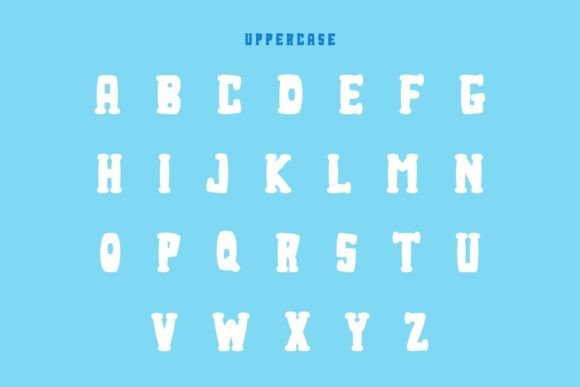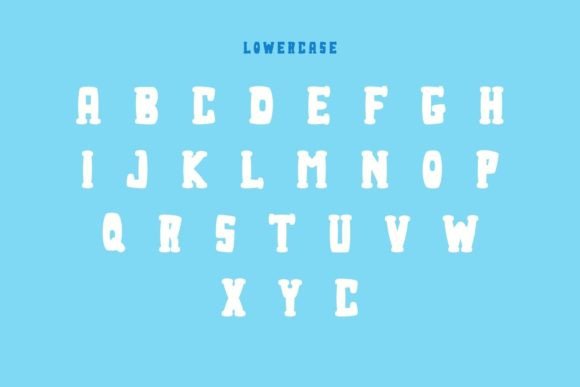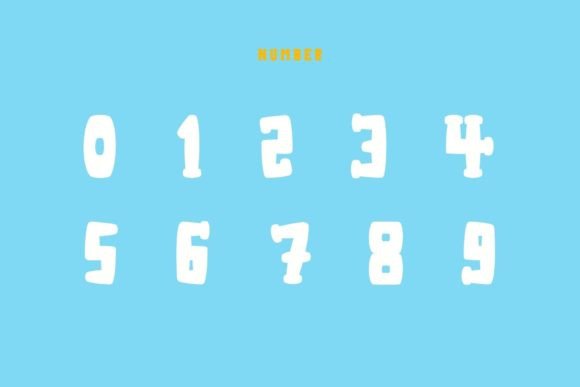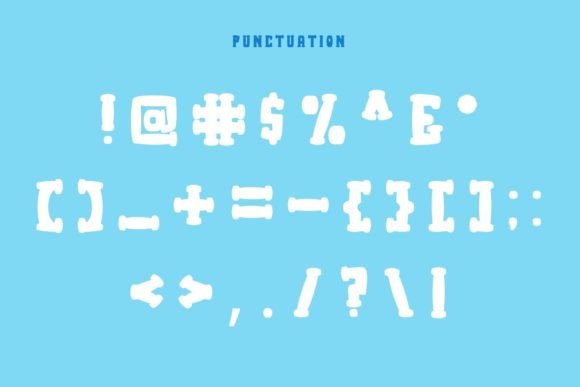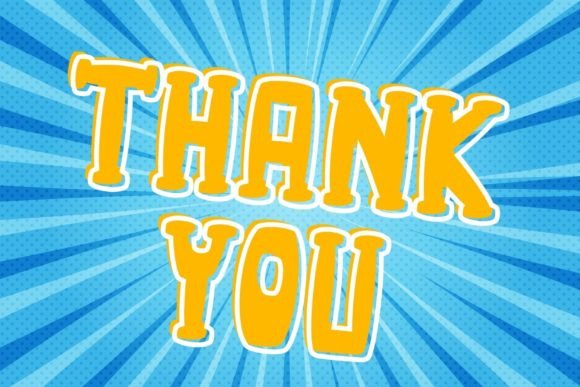
Unleashing Your Inner Creativity with the Perfect Font
You know that moment when a spark of inspiration hits you, and you can’t wait to bring your creative vision to life? Maybe it’s a late-night brainstorming session, a burst of ideas while sipping your morning coffee, or a conversation with a fellow designer that sets your imagination ablaze. Whatever the trigger, it’s moments like these that remind us why we love being creatives.
When you’re looking for a font that captures the essence of playfulness and authenticity, Bubble Font is the perfect choice. This charming serif font is not just a design element – it’s a key to unlocking the personality of your projects. Whether you’re working on Halloween-themed designs, blog posts, or branding materials, Bubble Font adds a touch of whimsy and charm that’s hard to resist.
Bubble Font Key Features
- Unique Characteristic: Distinctive bubble-like shape of each letter, creating a playful and whimsical feel.
- Legibility: Designed for clear readability, with careful attention to letter spacing and kerning to minimize clutter.
- Font Weight and Style: Available in regular, bold, and italic styles, allowing for versatility in design applications.
- Language Support: Supports multiple languages, including Latin, Cyrillic, and Greek alphabets, making it suitable for global branding and design projects.
Bubble Font Review
I recently had the chance to work with the “Bubble Font” and I have mixed feelings about it. Here’s what I think works well: ✨ The font’s playful, whimsical design is perfect for creating a fun and lighthearted atmosphere. It’s great for titles, headings, and other text elements where you want to add a touch of personality.
- ✨ Easy to read in larger font sizes
- ✨ Unique and attention-grabbing design
- ✨ Supports various styles, from casual to elegant
However, there are some limitations: ⚠️ The font can be a bit too playful and may not be suitable for more formal or professional projects. Additionally, it may not be the best choice for text-heavy content, as the bubbles can make the text harder to read.
- ⚠️ May not be suitable for formal or professional projects
- ⚠️ Can be overwhelming for text-heavy content
Overall, I think the “Bubble Font” is a fun and creative option for designers looking to add some personality to their projects. However, it’s not a one-size-fits-all solution and should be used judiciously.
Tips for Getting the Most Out of Bubble Font
Use Bubble Font to add visual interest to your text, such as in headings, titles, or quotes.
Experiment with different font sizes and colors to create a unique look.
Combine Bubble Font with other design elements, such as shapes or icons, to create a visually appealing design.
Bubble Font is commonly used in:
Marketing materials, such as brochures and flyers.
Web design, such as blog posts and social media graphics.
Presentations, such as PowerPoint slides and Keynote presentations.
Alternatives to Bubble Font
Great Vibes Font is a modern, handwritten font that is perfect for creating a fun and playful atmosphere. It is ideal for use in social media graphics, advertisements, and other promotional materials where a casual, friendly tone is desired.
Compared to Bubble Font, Great Vibes Font has a more dynamic and expressive feel, with a wider range of letterforms and a more organic appearance. While Bubble Font is more uniform and rounded, Great Vibes Font has a more natural, handwritten look.
Alex Brush Font is a elegant, handwritten font that is perfect for creating a sophisticated and luxurious atmosphere. It is ideal for use in high-end branding, packaging, and other materials where a refined, high-end look is desired.
Compared to Bubble Font, Alex Brush Font has a more refined and polished appearance, with a focus on elegance and sophistication. While Bubble Font is more playful and casual, Alex Brush Font is more formal and refined.